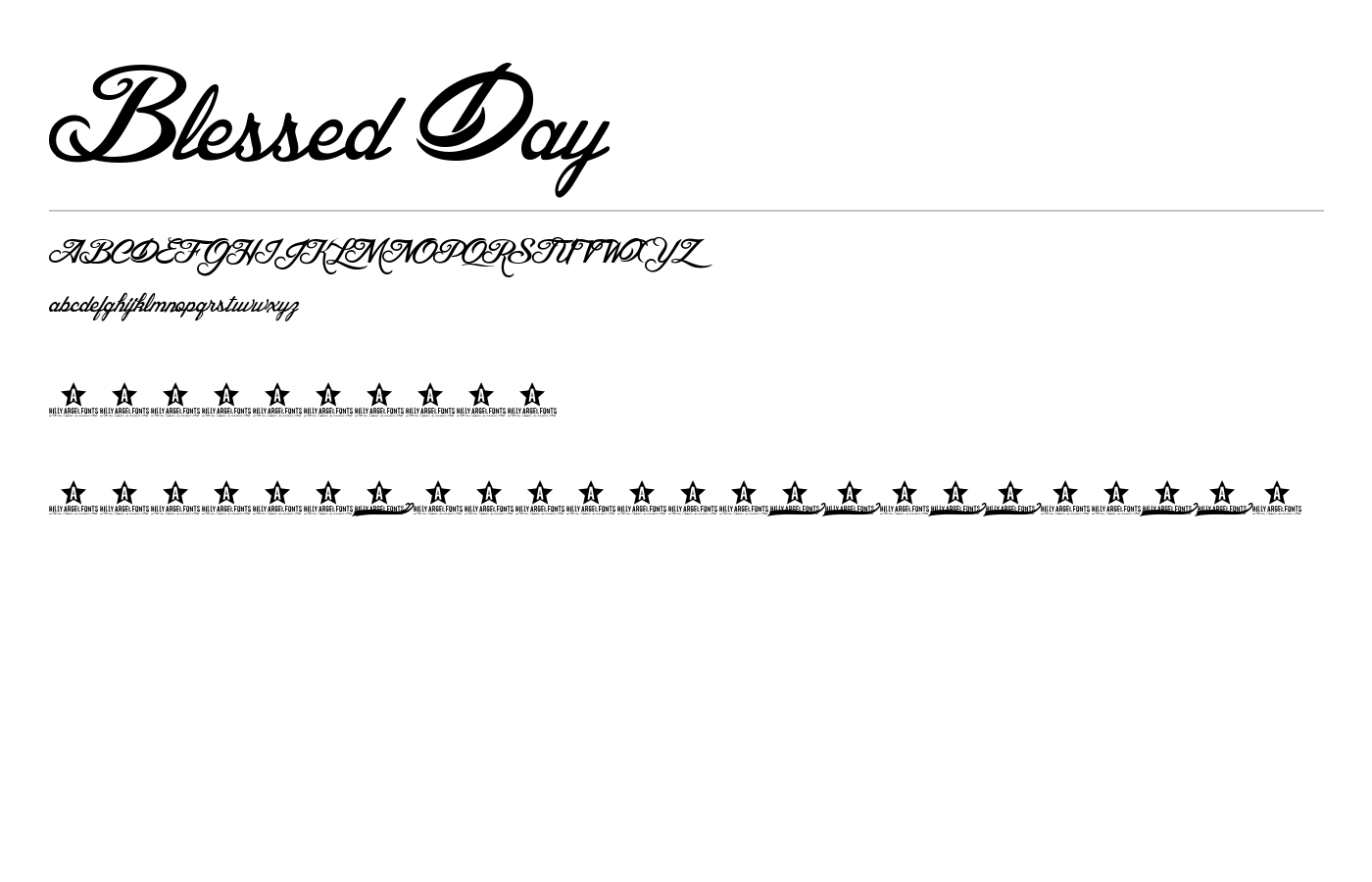
Blessed Day is an elegant script font with a classic, flowing style that exudes sophistication and charm. Its smooth, connected letterforms and moderate contrast make it perfect for wedding invitations, luxury branding, and any design that calls for a graceful, timeless feel. This font works beautifully in headlines and decorative text where a touch of refined personality is desired.
Blessed Day Font
About Blessed Day Font